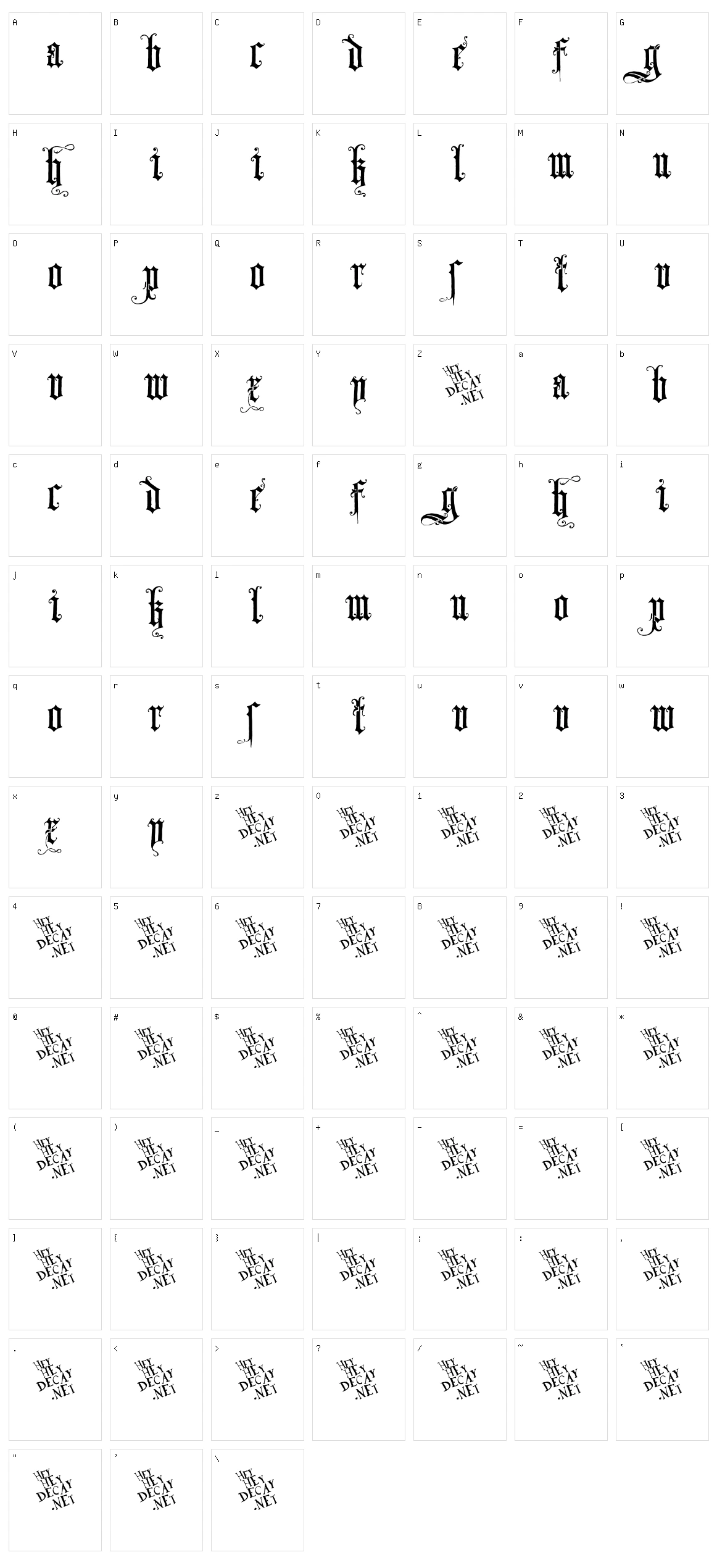
Skjend Hans Gotisk
Designed by: Heyheydecay
Category: Medieval & Gothic
This old gothic font was traced from an old book some years ago, and I have made som minor changes to it now.
All letters are lowercase, but I have assigned them to uppercase as well.